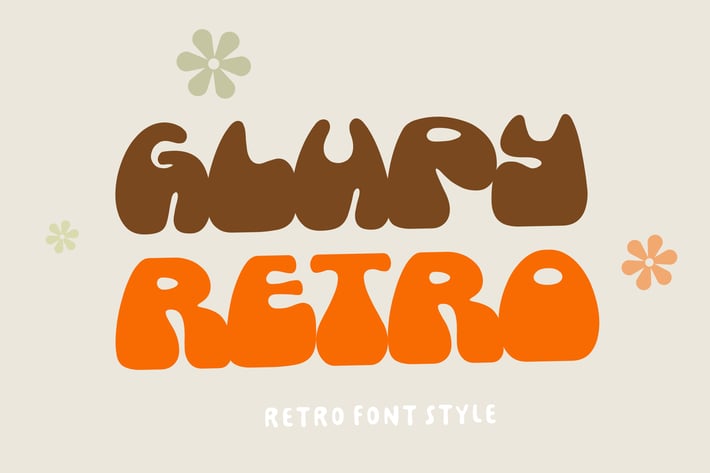
Glupy Retro Font
Glupy Retro is a display type font with the style fat below and skinny on top. It features an incredibly smooth and retro style, while still keeping a modern feel. This font comes in all uppercase, lowercase, punctuation, symbols, numerals and support multilingual. Use this Glupy Retro font to add that special retro vintage touch to any design idea you can think of!.